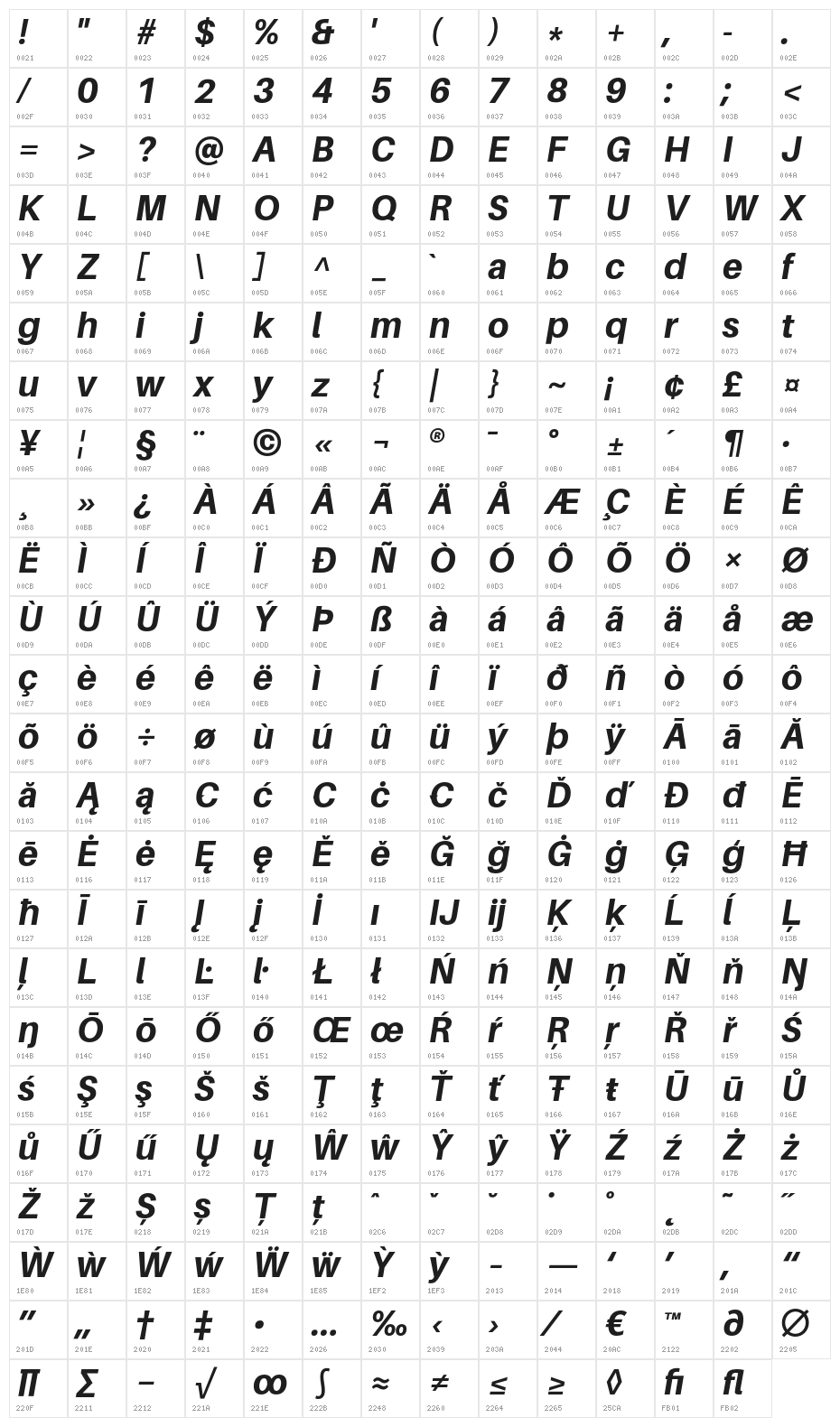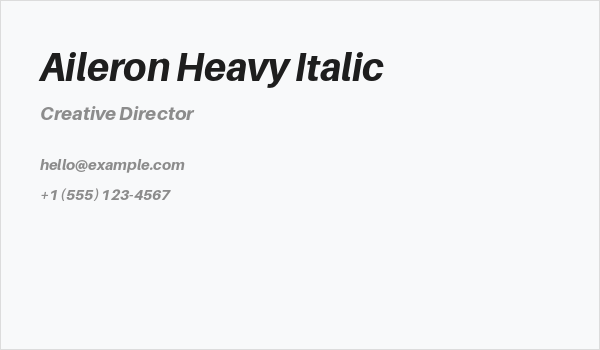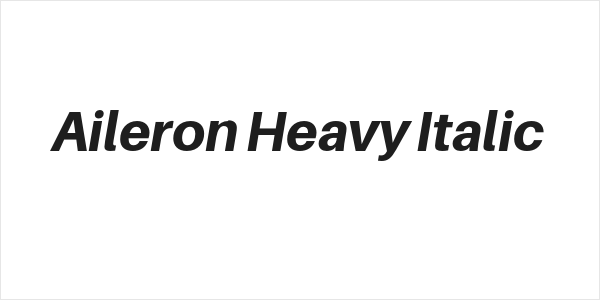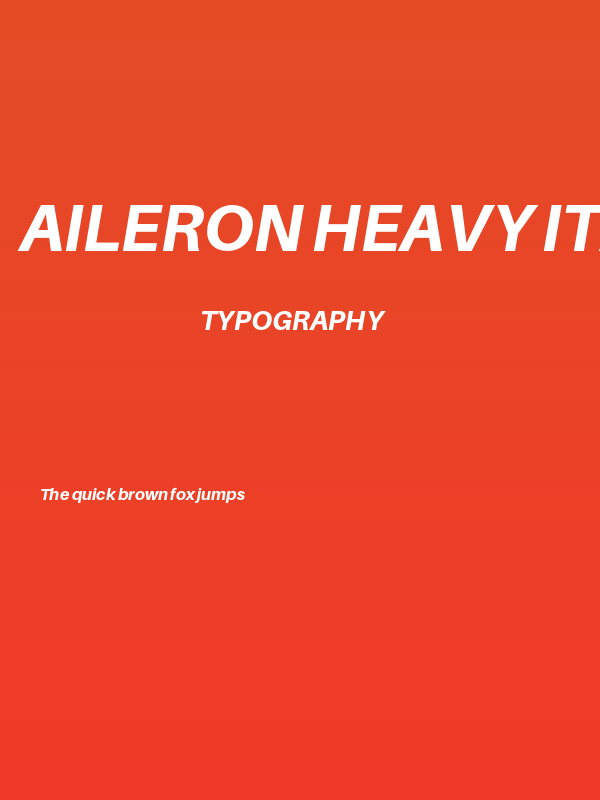
Aileron Heavy Italic Font
Aileron Heavy Italic Description
This font features a bold and italicized style, offering a modern and dynamic appearance. The characters are well-defined with a slight slant, enhancing readability while adding a touch of elegance. The uppercase and lowercase letters maintain a consistent weight, providing a cohesive look. Numbers and special characters are designed with the same boldness, ensuring uniformity across all text elements. The font's clean lines and smooth curves make it versatile for various design applications.
| Use Case | Headlines, Logos, Advertising |
| Proposed Projects | Ideal for branding, advertising, and editorial design where a strong and modern impression is needed. |